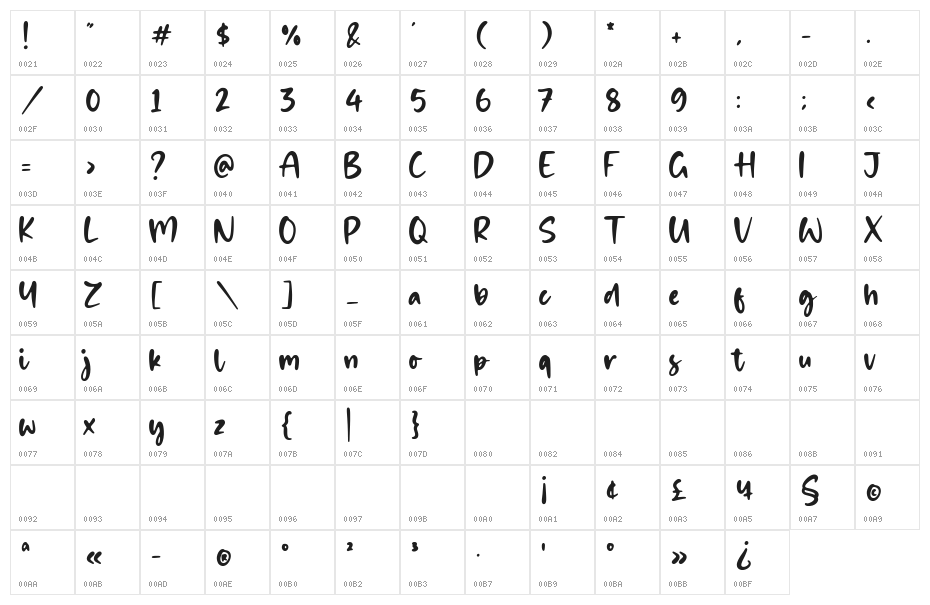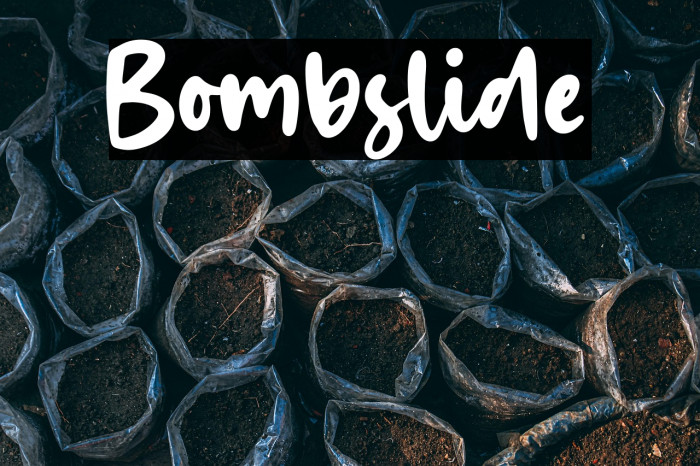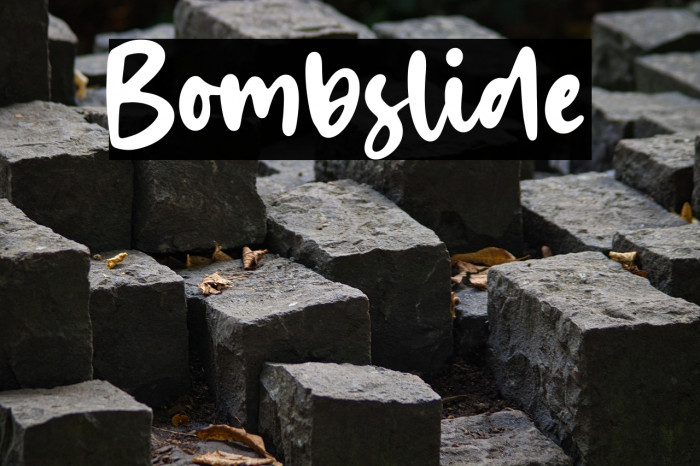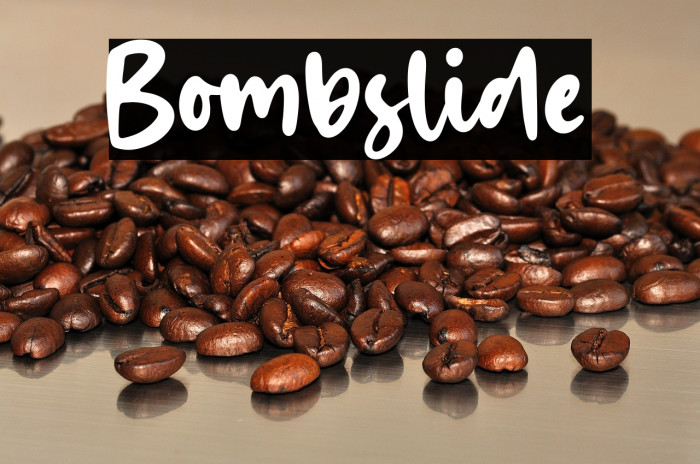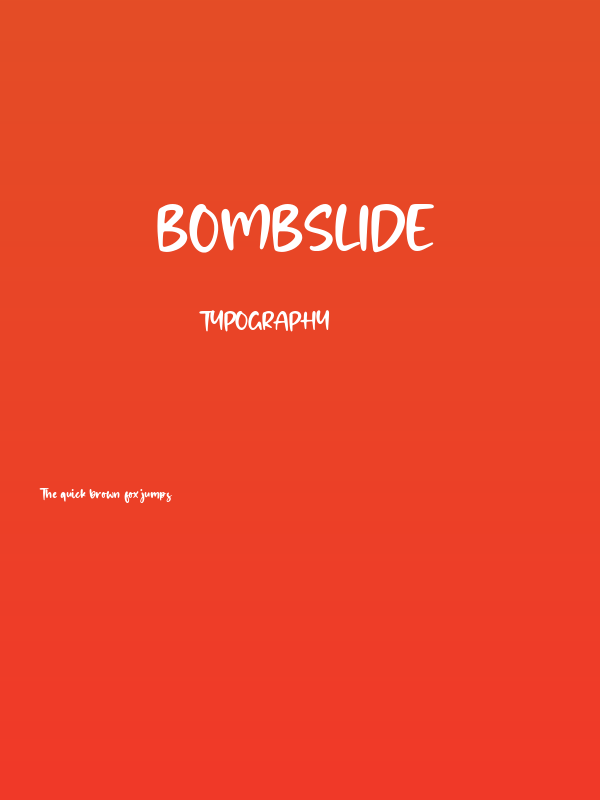
Bombslide Font
Bombslide Description
This font features a playful and energetic handwritten style, characterized by its bold and rounded letterforms. The strokes are thick and consistent, giving it a strong presence on the page. The uppercase and lowercase letters maintain a casual and friendly appearance, with a slight slant that adds to its dynamic feel. The numerals and special characters are equally expressive, making this font versatile for various creative applications. Its informal and approachable design makes it ideal for projects that aim to convey warmth and personality.
| Use Case | Logos, Headlines, Social Media Graphics |
| Proposed Projects | Ideal for greeting cards, playful branding, children's books, and social media graphics. |